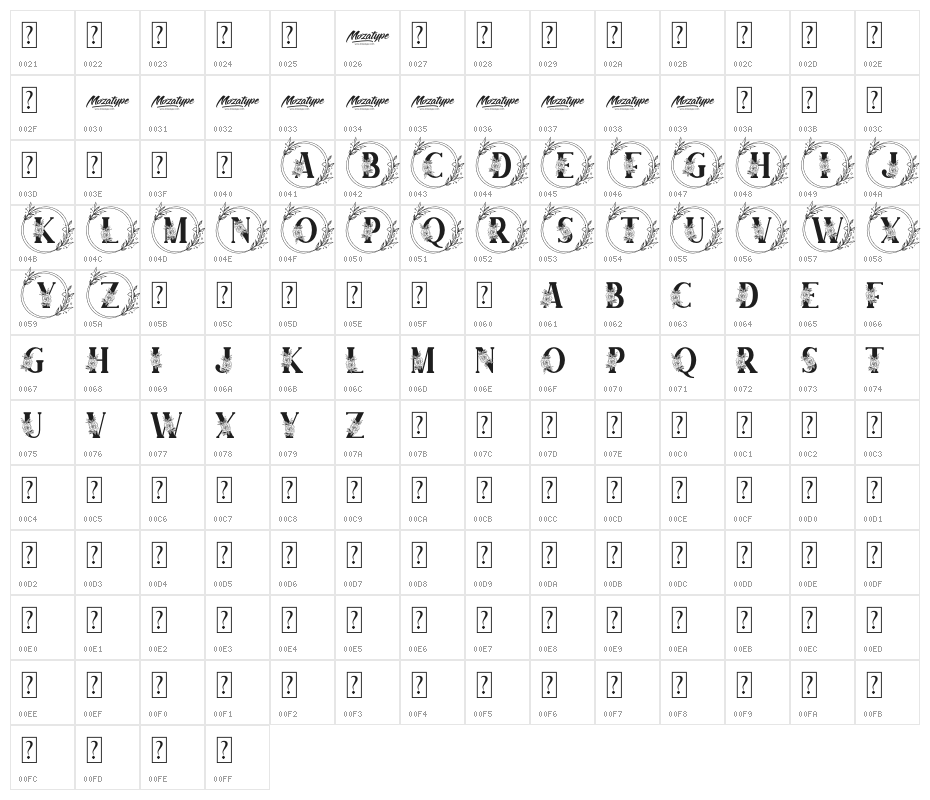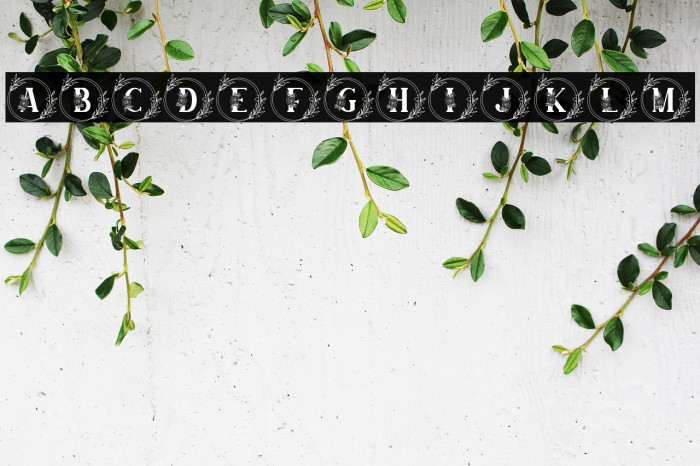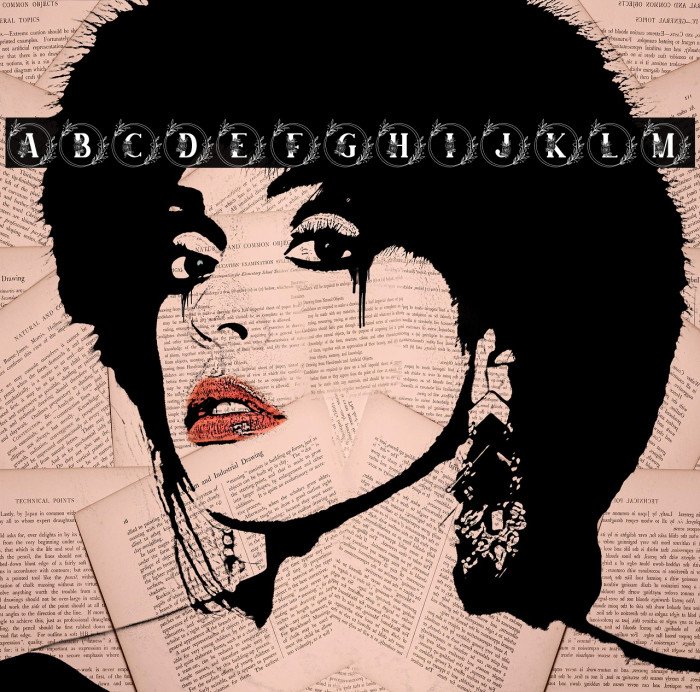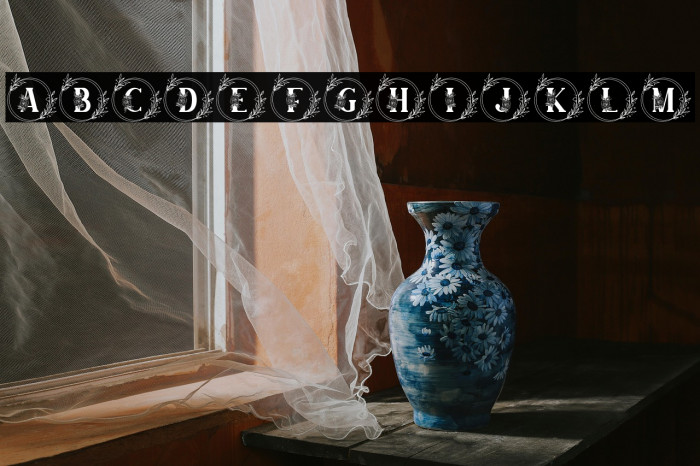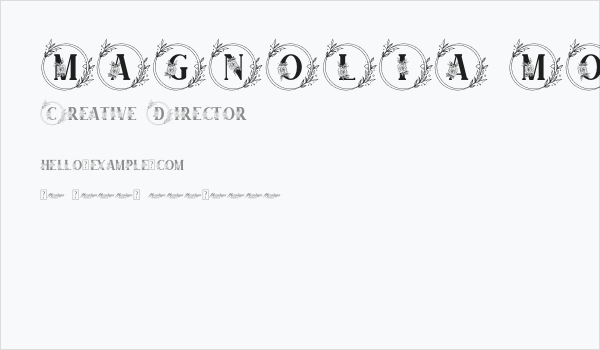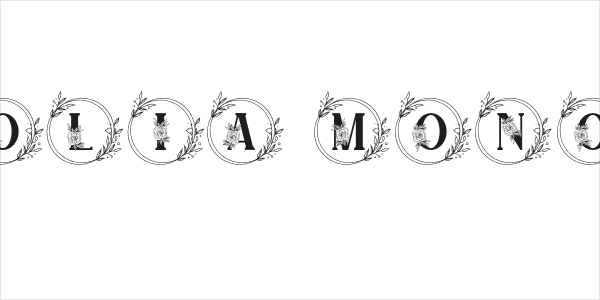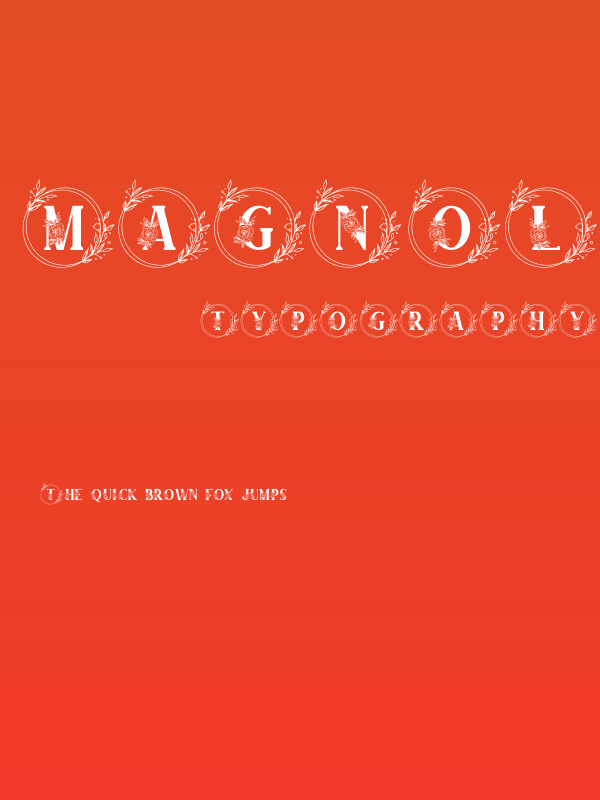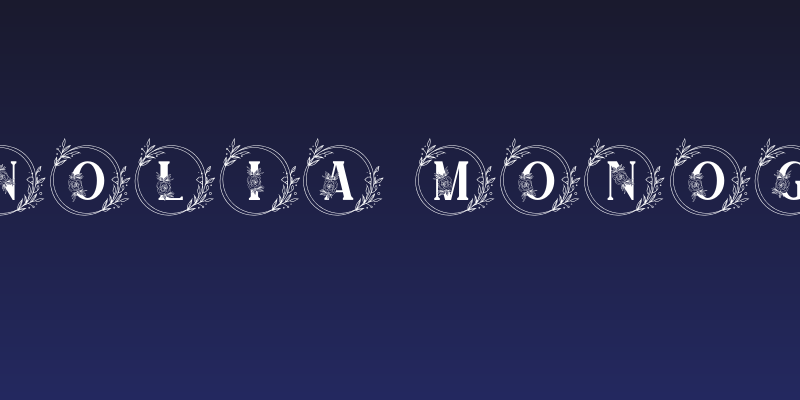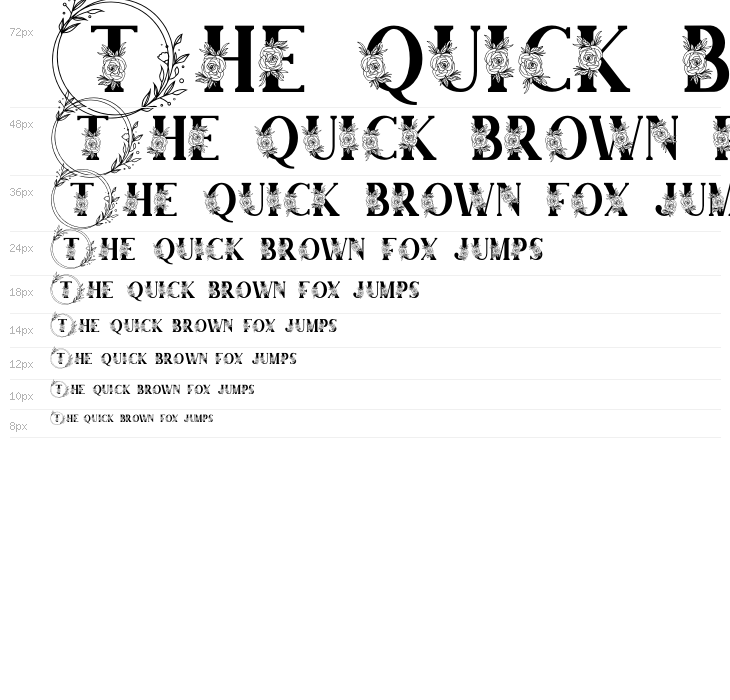
MAGNOLIA MONOGRAM Font
MAGNOLIA MONOGRAM Description
This font features an elegant and decorative style, incorporating floral elements into each letter. The uppercase letters are adorned with intricate floral designs, giving them a sophisticated and artistic appearance. The font is ideal for projects that require a touch of elegance and creativity, such as wedding invitations, branding, and decorative monograms. The floral motifs add a unique charm, making it stand out in any design. The overall style is both classic and decorative, with a modern twist that appeals to contemporary aesthetics.
| Use Case | Logos, Headlines, Decorative text |
| Proposed Projects | Ideal for wedding invitations, branding, decorative monograms, and artistic projects. |